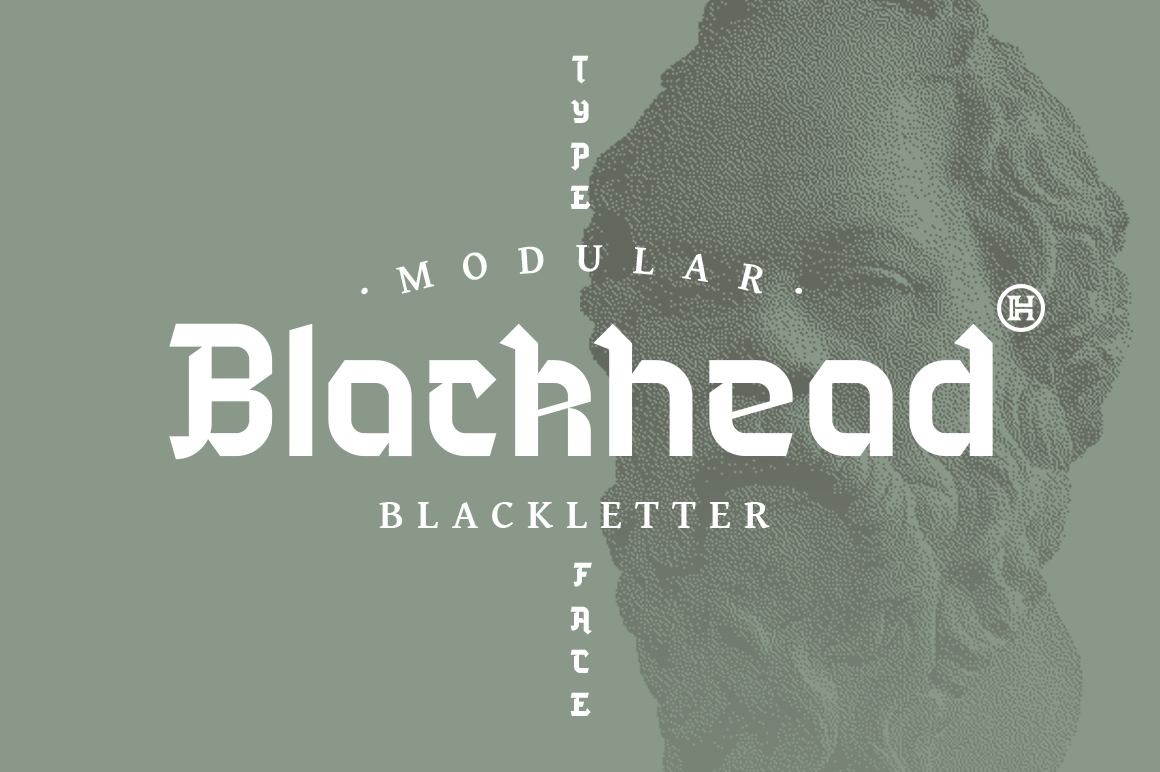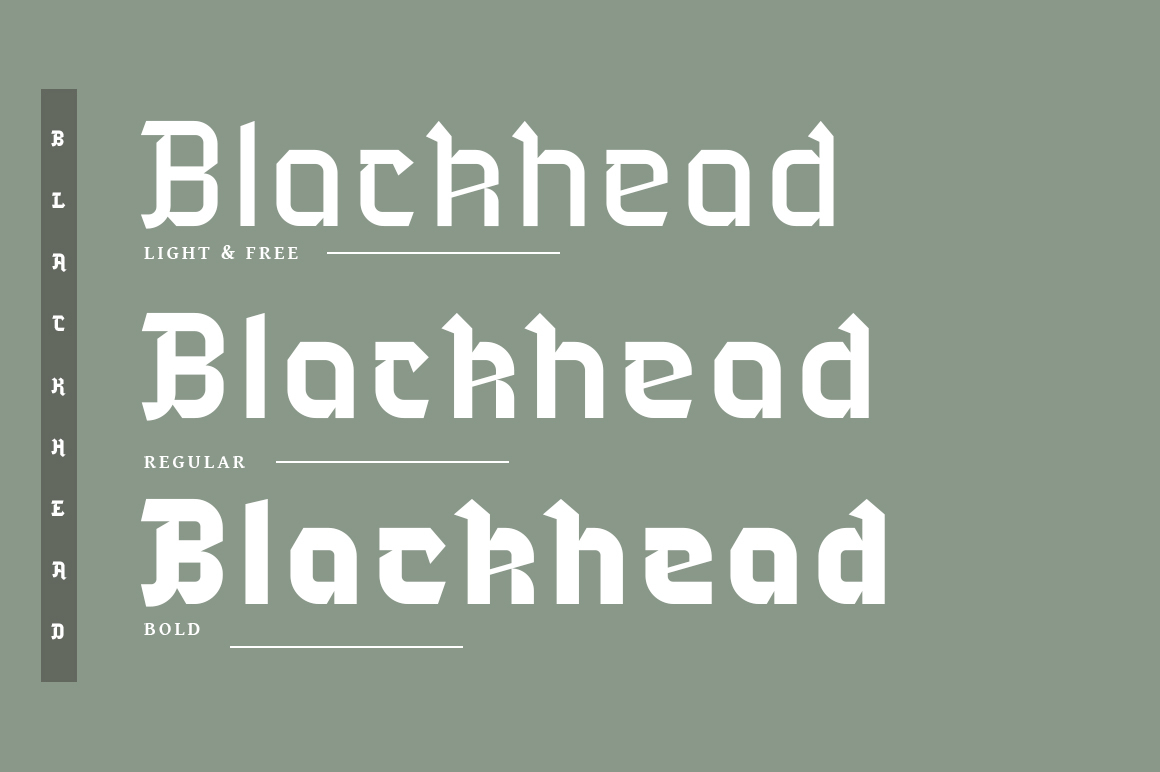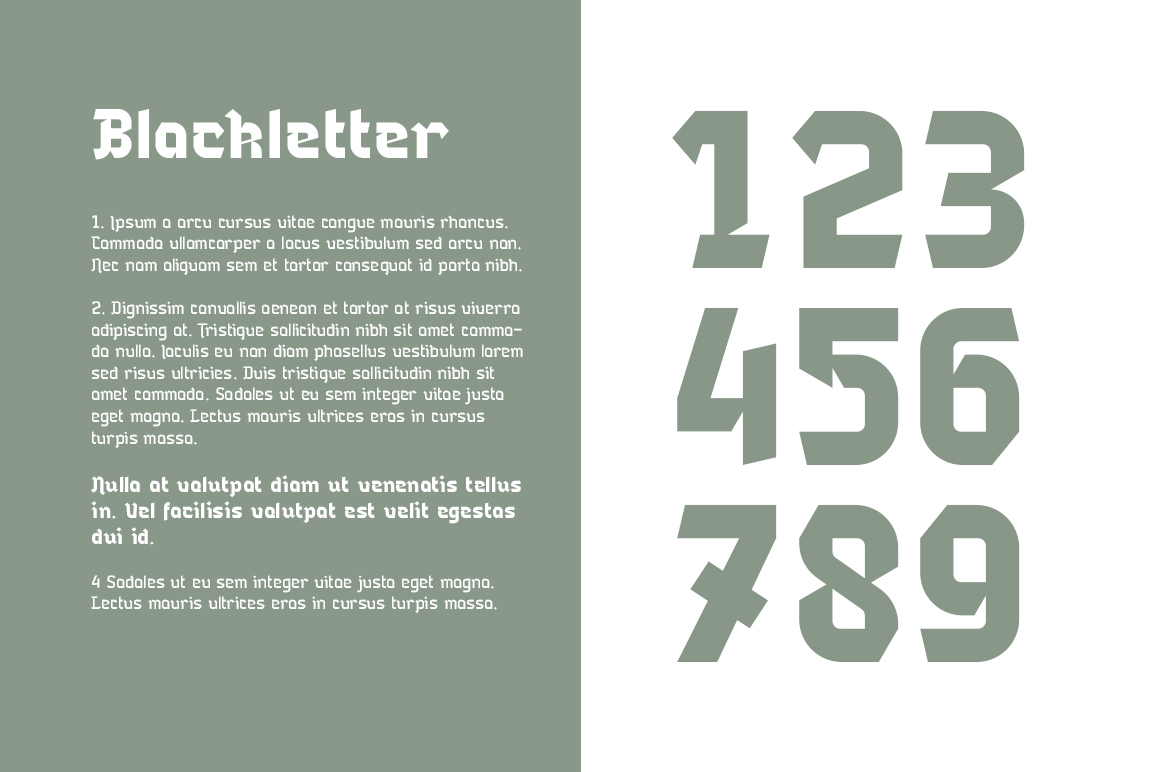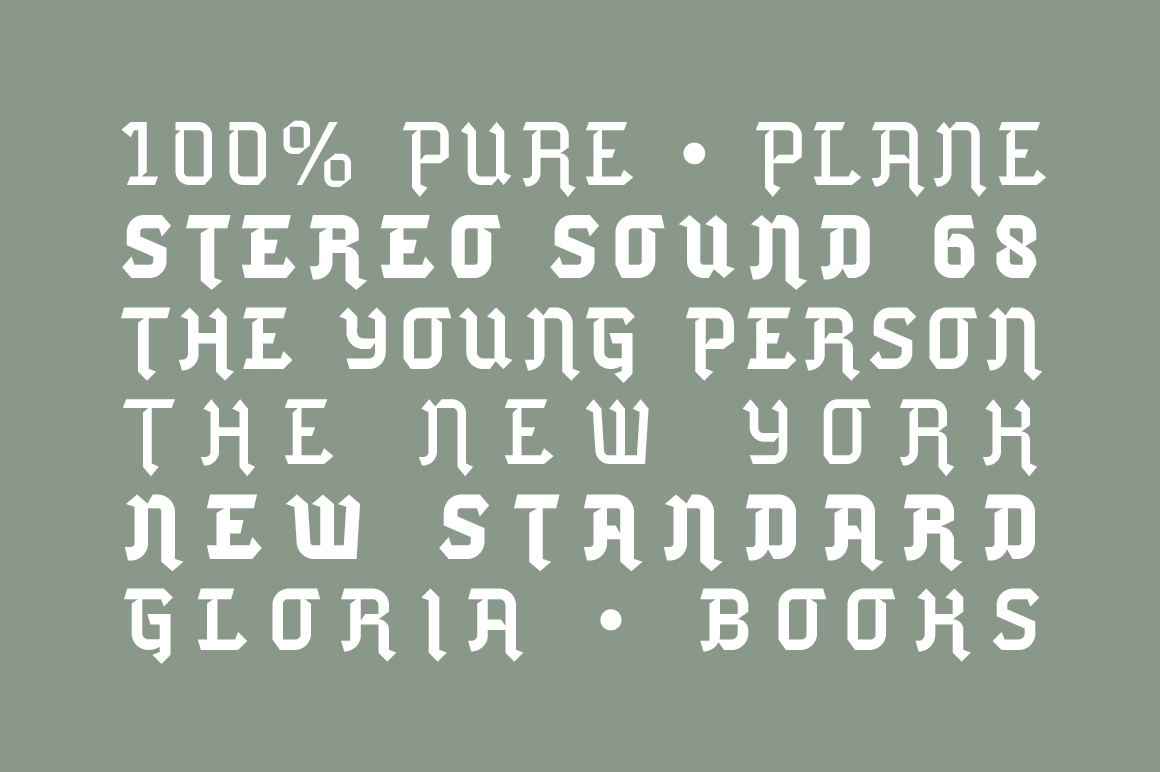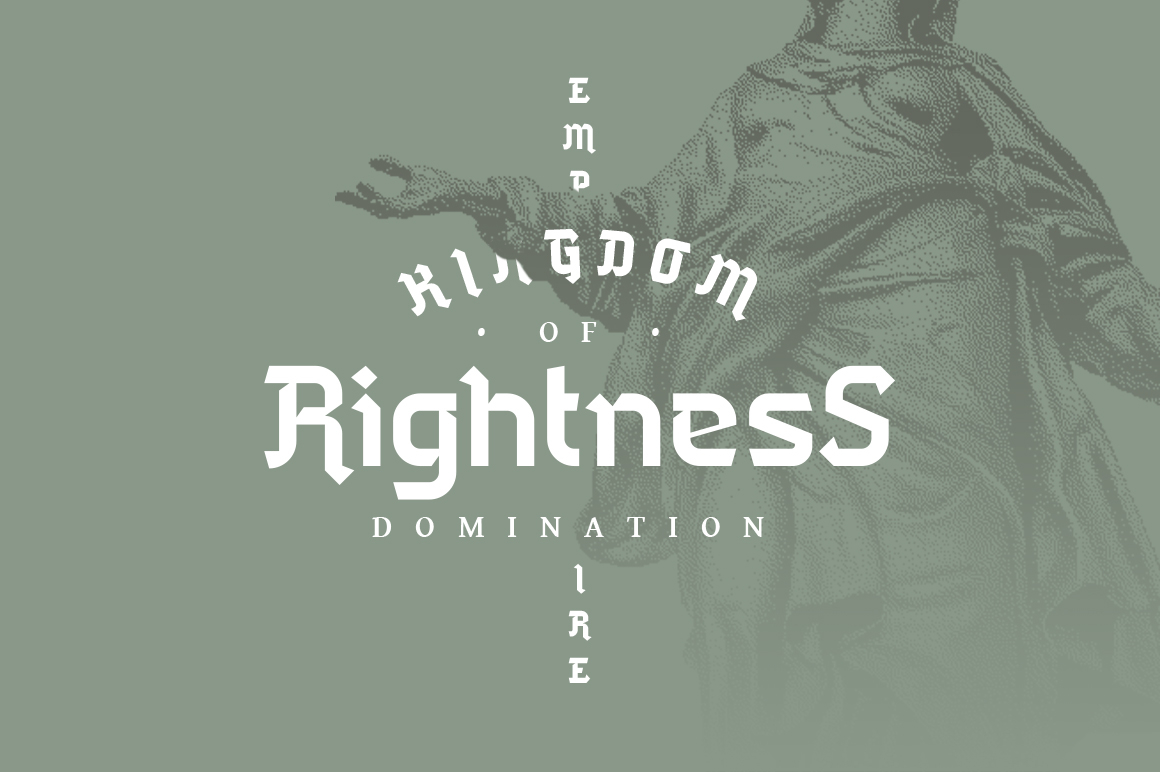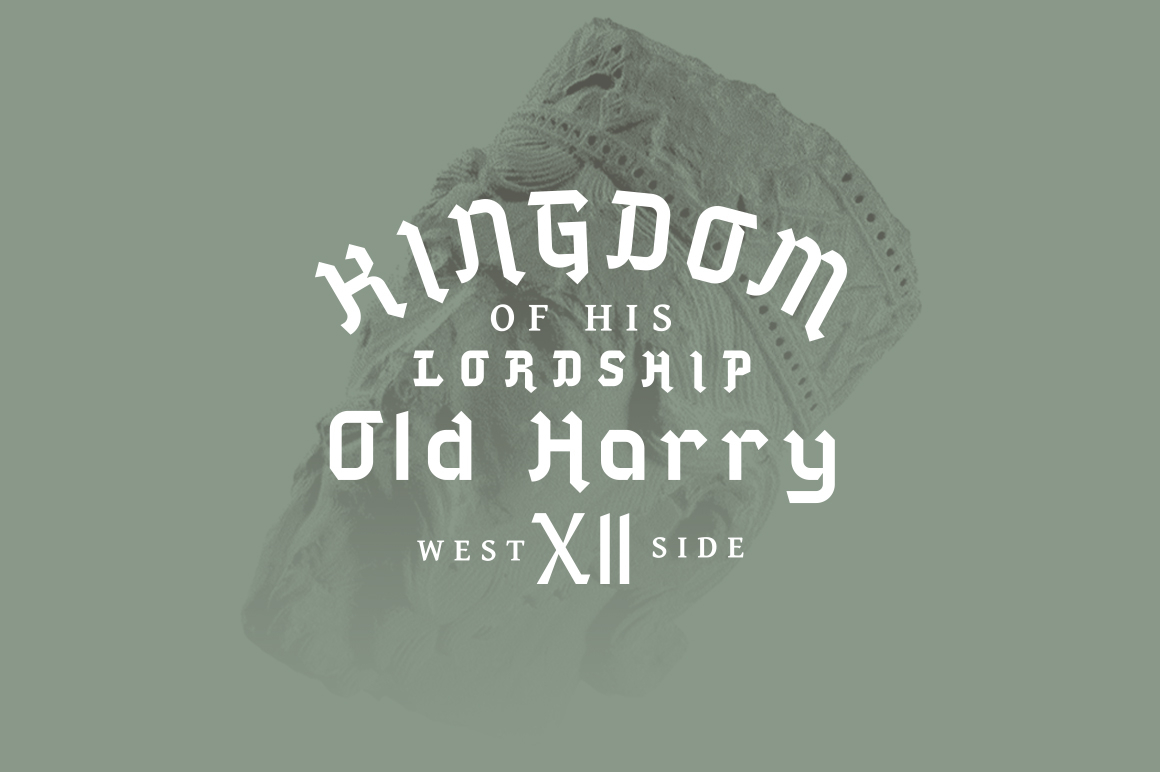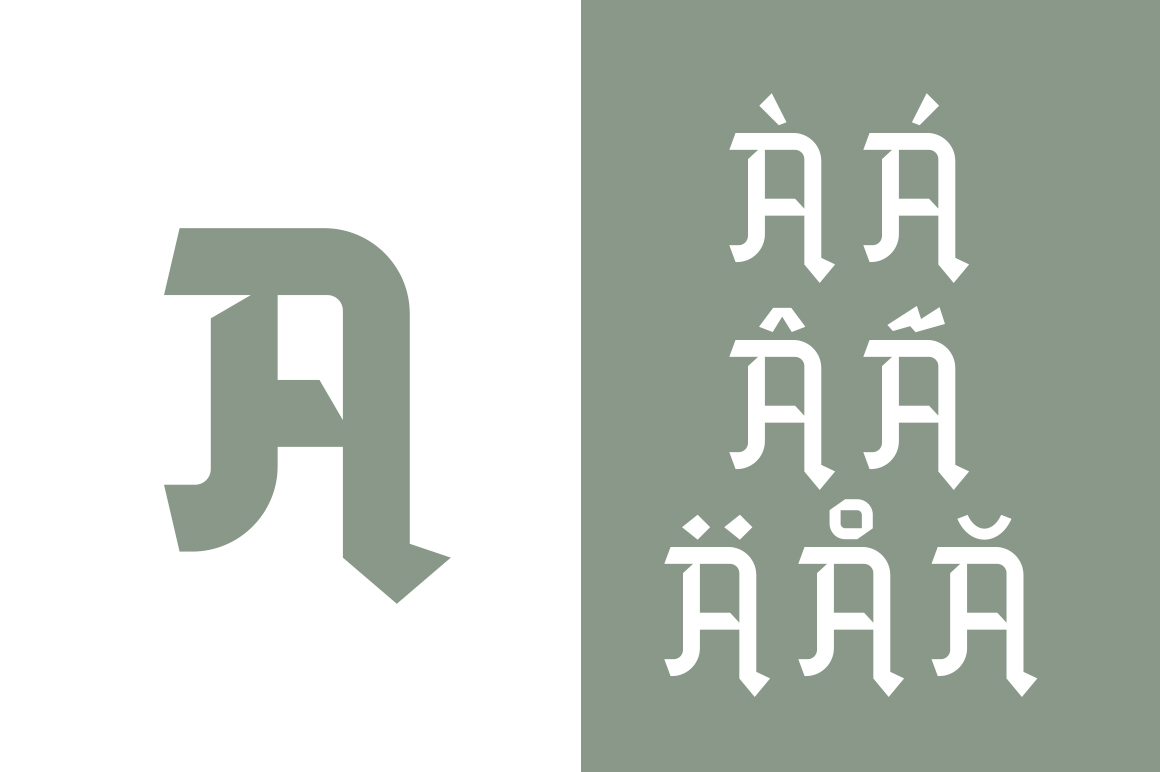
Blackletter Fonts Blackhead Font 0 161 FacebookTwitterPinterestWhatsApp 1 of 10 Blackhead Font Poster 2... Blackhead Font Poster 3... Blackhead Font Poster 4... Blackhead Font Poster 5... Blackhead Font Poster 6... Blackhead Font Poster 7... Blackhead Font Poster 8... Blackhead Font Poster 9... Blackhead Font Poster 10... About Blackhead Font Inspired by Gothic aesthetics, Blackhead is a fun and bold blackletter font with an incredibly modern feel. DOWNLOAD NOW